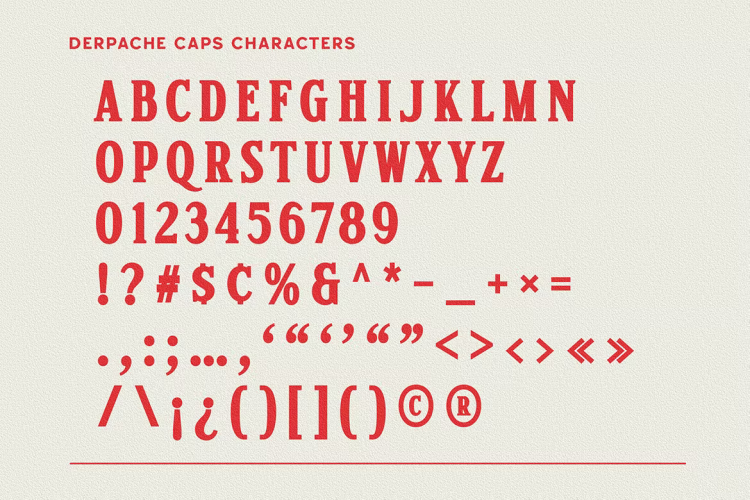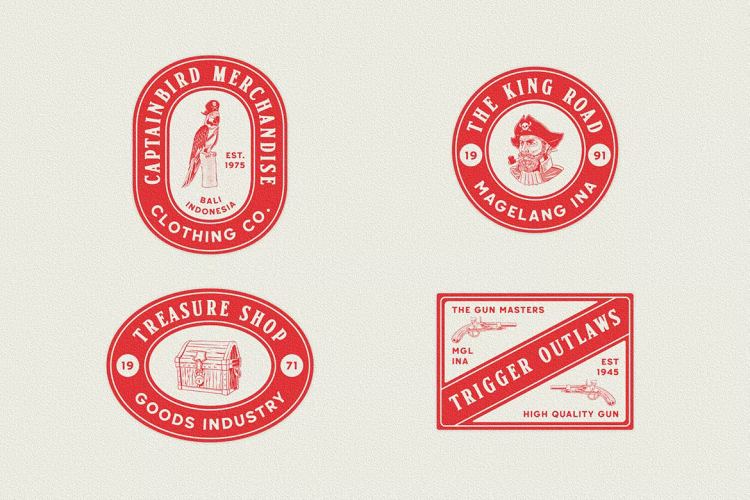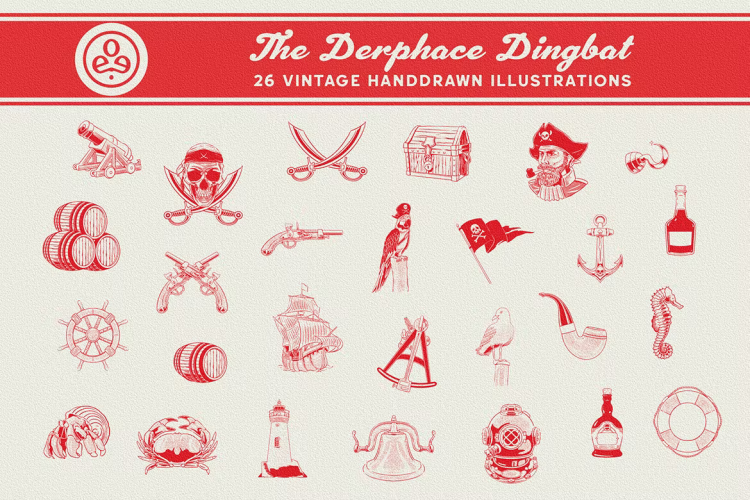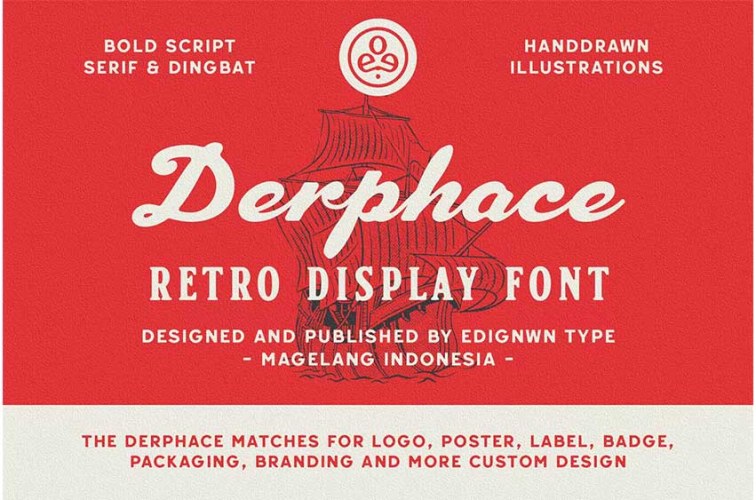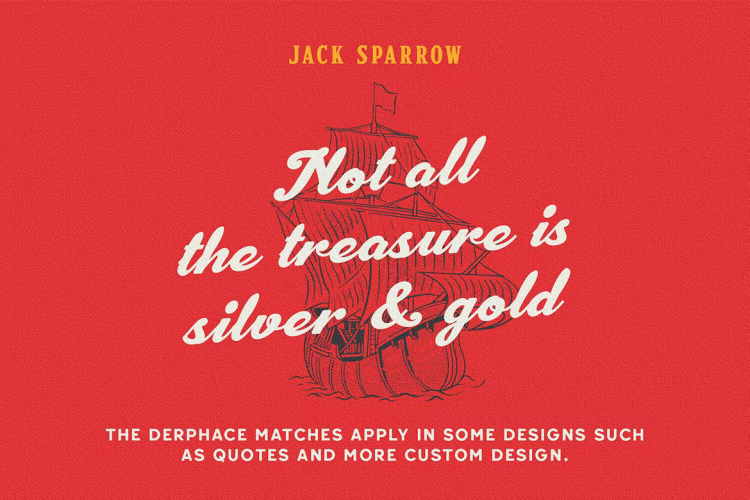
Derphace Font
Derphace Font is inspired by authentic typefaces in old labels. These font collections contain script and serif font. Every font comes with 4 style typefaces (regular, rounded, rough, and stamp). Derphace gives more extras nautical and pirate in one pack illustrations. This script font includes some alternates. The Derphace matches apply in some designs such as the logo, poster, label, badge, packaging, branding, quotes, and more custom designs.
Where Derphace Font works best
Derphace Font is built for size: event posters, hero headlines and billboard-style layouts.
High contrast display type like Derphace Font reads instantly in thumbnails and motion graphics.
What is Derphace Font good for?
Derphace Font is a Display Fonts typeface tagged Branding, Display, Display Fonts, Packaging. It works well for headlines, logos, posters, social media graphics and branding projects that need a distinctive display fonts look.